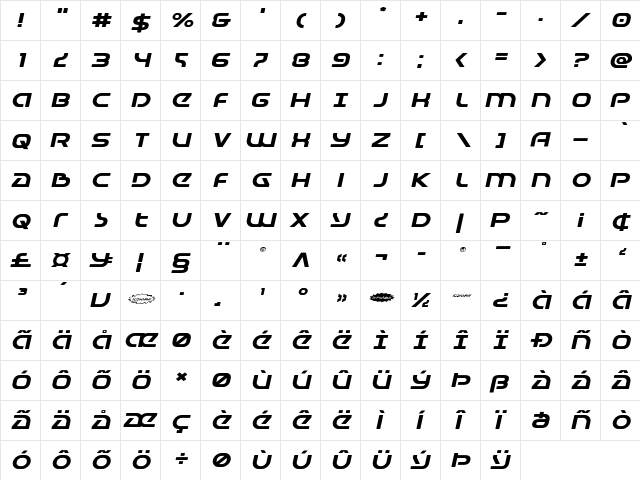
Universal Jack Expanded Italic Expanded Italic
Design Context for Universal Jack Expanded Italic Typeface
Universal Jack Expanded Italic is a composed and adaptable typeface that performs quietly and consistently across a wide range of design contexts. The dynamic lean of this cut emphasises speed and emphasis in any layout.
Pro Tip: Use Universal Jack Expanded Italic for emphasis, pull quotes, and subheadings where its slanted energy can add rhythm to the layout.